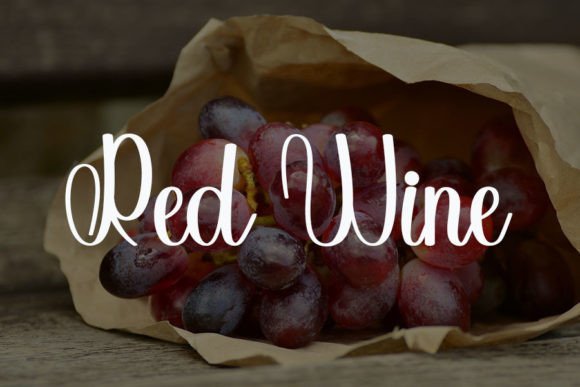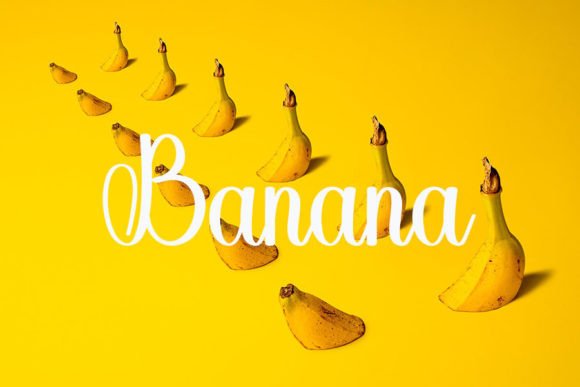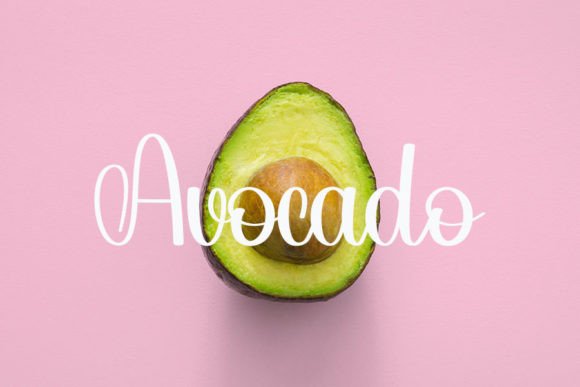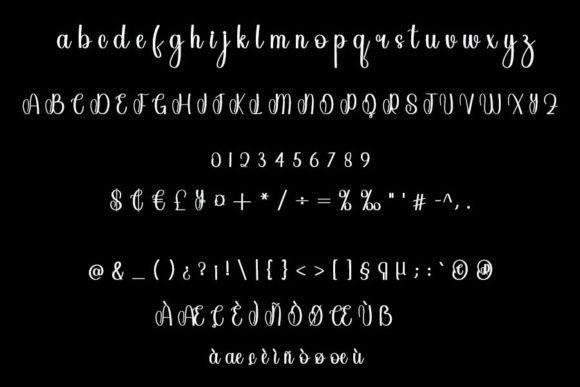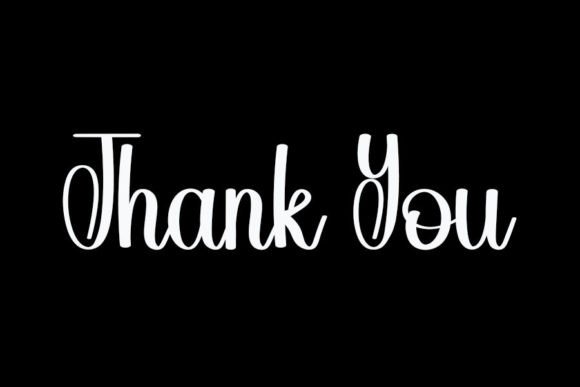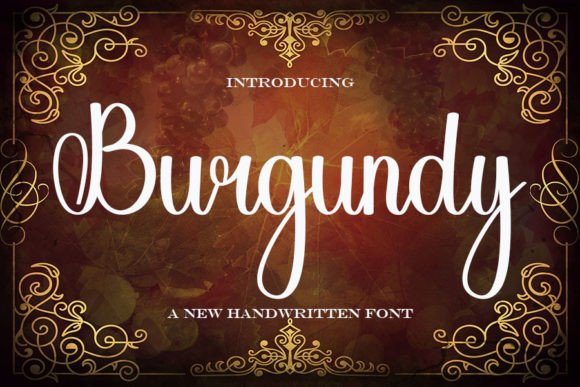
Burgundy Font: Elevate Your Designs with Elegance and Timeless Style
Burgundy is a stunning handwritten font that has captured the hearts of designers and crafters alike. With its elegant touch and incredibly distinct style, it’s the perfect addition to your favorite projects. In this article, we’ll dive into the world of Burgundy Font, exploring its unique features, uses, and benefits.
The Beauty of Burgundy Font
Burgundy Font is a masterpiece of handwritten typography, boasting a neat and beautiful design that exudes sophistication and refinement. Its elegant touch is instantly noticeable, making it an ideal choice for projects that require a touch of luxury and glamour. The font’s timeless style ensures that it will remain a popular choice for years to come, long after fleeting trends have faded.
What Makes Burgundy Font Stand Out?
So, what sets Burgundy Font apart from other fonts? Here are a few key features that make it a standout:
- Unique Lettering Style: Burgundy Font features an incredibly distinct lettering style that’s both elegant and eye-catching. Each letter is carefully crafted to create a beautiful, flowing script that’s a joy to behold.
- Timeless Appeal: Unlike trendy fonts that quickly go out of style, Burgundy Font has a timeless quality that ensures it will remain a popular choice for years to come.
- Elegant Touch: The font’s elegant touch makes it perfect for projects that require a touch of sophistication and refinement.
Uses for Burgundy Font
Burgundy Font is an incredibly versatile font that can be used in a wide range of projects, including:
- Branding and Logo Design: Create a lasting impression with a beautiful, elegant logo that showcases your brand’s personality.
- Stationery and Invitations: Add a touch of luxury to your stationery and invitations with Burgundy Font’s elegant script.
- Packaging Design: Elevate your packaging design with a font that’s both sophisticated and eye-catching.
- Digital Design: Use Burgundy Font to create stunning digital designs, including social media graphics, blog headers, and more.
Benefits of Using Burgundy Font
So, why should you choose Burgundy Font for your next project? Here are just a few benefits:
- Instant Elegance: Add a touch of elegance and sophistication to your designs with Burgundy Font’s beautiful script.
- Versatility: Use Burgundy Font in a wide range of projects, from branding and logo design to stationery and digital design.
- Timeless Style: Ensure your designs remain stylish and relevant for years to come with Burgundy Font’s timeless appeal.
Tips for Using Burgundy Font
Here are a few tips for getting the most out of Burgundy Font:
- Pair with Complementary Fonts: Pair Burgundy Font with complementary fonts to create a beautiful, harmonious design.
- Use for Headings and Titles: Use Burgundy Font for headings and titles to add a touch of elegance and sophistication.
Burgundy Font is a stunning handwritten font that’s perfect for designers and crafters looking to add a touch of elegance and sophistication to their projects. With its unique lettering style, timeless appeal, and elegant touch, it’s an ideal choice for a wide range of designs. Whether you’re creating branding and logo designs, stationery and invitations, or digital designs, Burgundy Font is sure to impress.